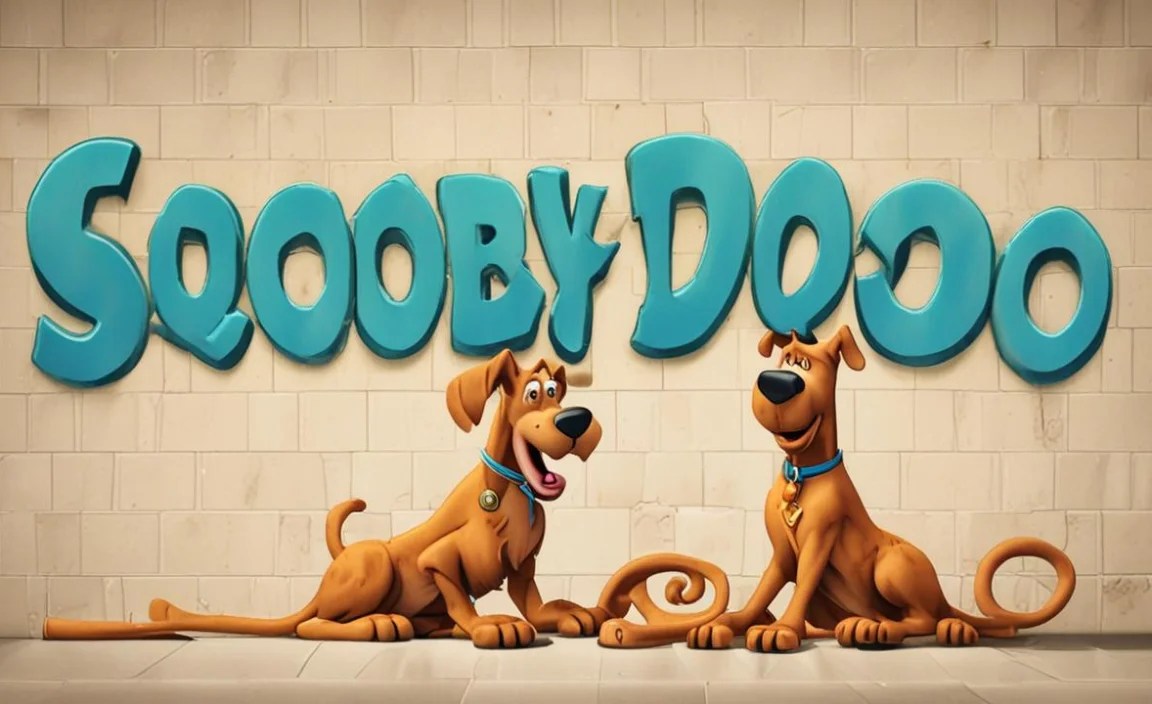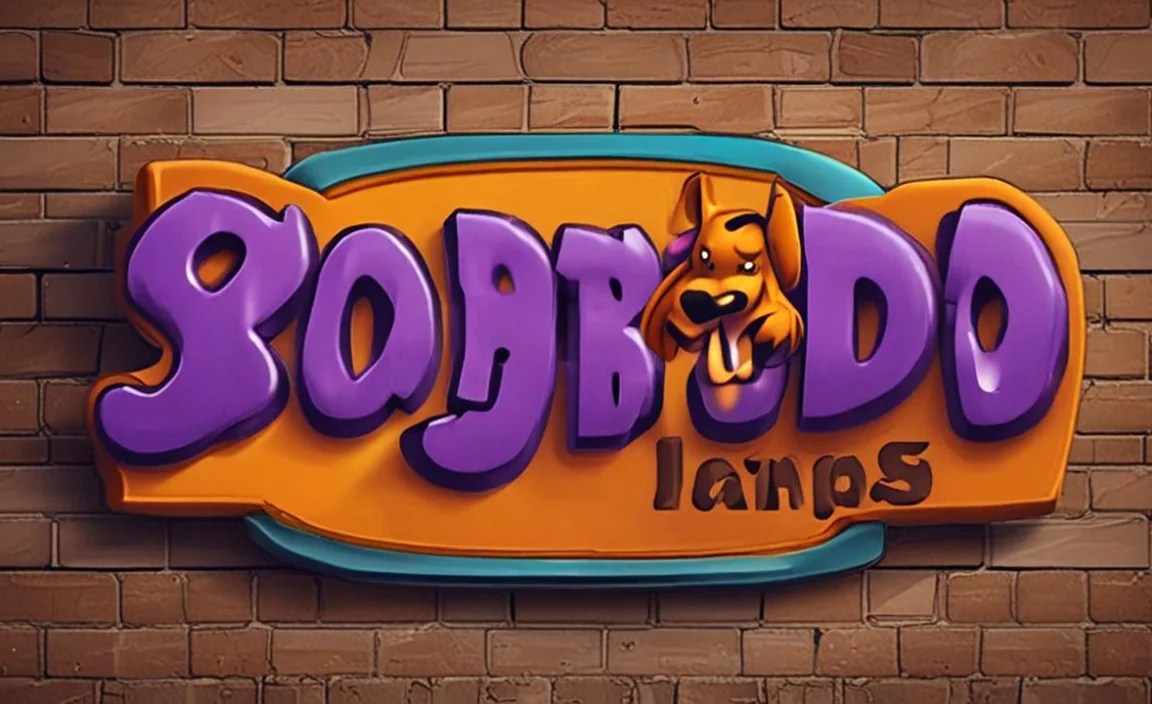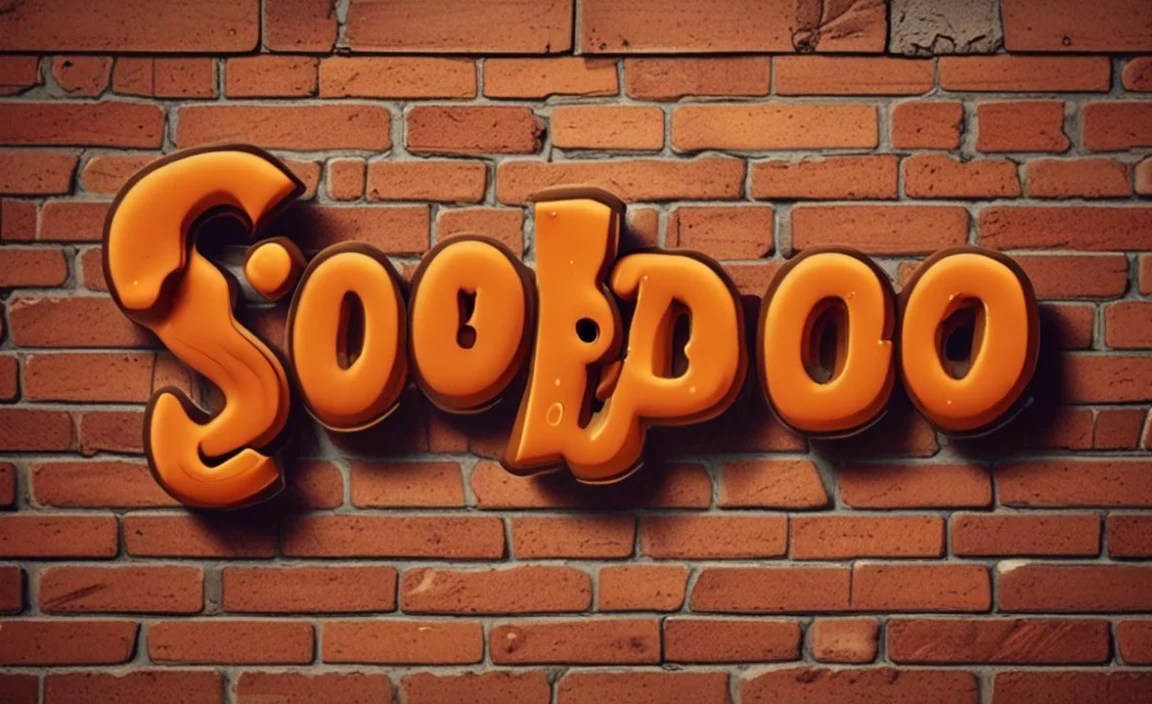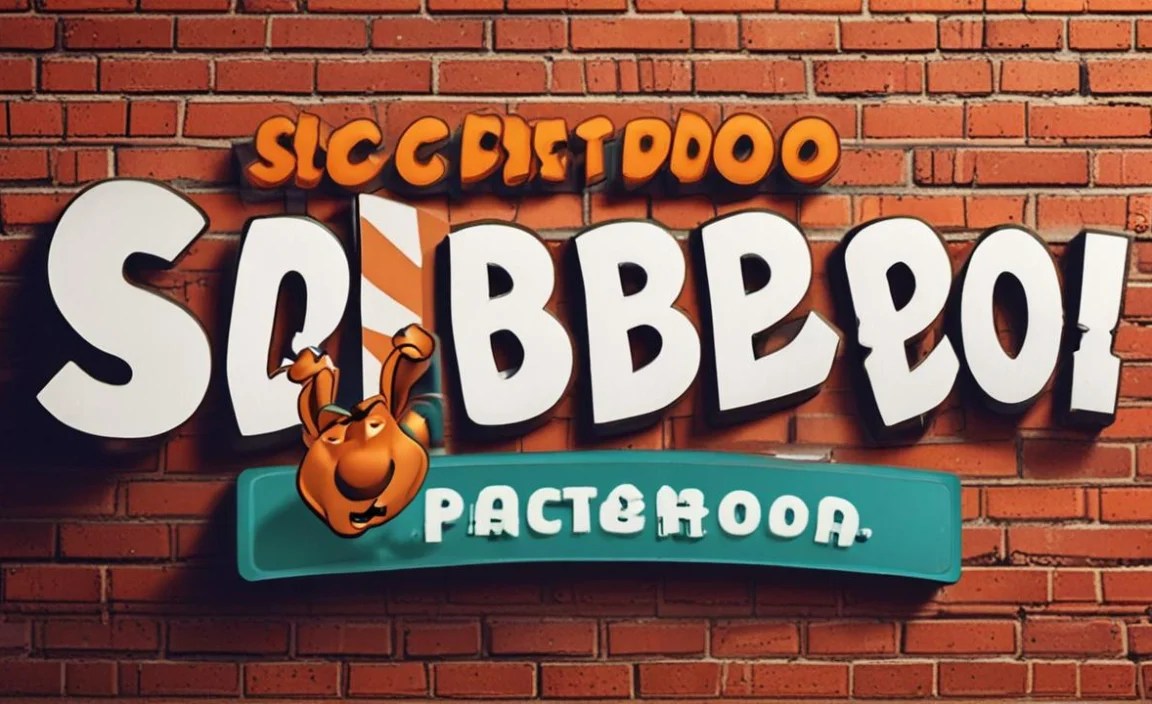
The Scooby Doo Font is a playful and whimsical typeface inspired by the iconic cartoon series “Scooby-Doo.” Designed by Lauren Ashpole, this font captures the fun and adventurous spirit of the beloved character, making it a perfect choice for designs related to animation, mystery, and childhood nostalgia.
Scooby Doo Font Information
| Name | Scooby Doo Font |
| Style | Display |
| Designer | Lauren Ashpole |
| Type | Cartoon |
Scooby Doo Font Family Includes
- Scooby Doo Regular
- Scooby Doo Bold
Where Scooby Doo Font Is In Use
The Scooby Doo Font plays a key role in creating fun and engaging designs that reflect the playful nature of the cartoon. Its unique style is ideal for various applications, including:
- Children’s Birthday Invitations
- Cartoon-Themed Projects
- Mystery or Detective Game Graphics
- Fan Art and Merchandise
- Animated Series Titles
- Kids’ Learning Materials
- Party Decorations
2. Why Is Scooby Doo Font Popular In Cartoon And Animation Branding?
The Scooby Doo Font’s whimsical and rounded design aligns perfectly with the playful and adventurous themes of the Scooby-Doo series, enhancing its visual appeal for young audiences.
3. Are There Any Special Characters In The Scooby Doo Font?
The Scooby Doo Font includes standard characters and basic punctuation but does not have extensive special characters or symbols.
4. What Are The Limitations Of The Scooby Doo Font?
The font’s cartoonish style may not be suitable for formal or professional documents and is best used in casual or child-friendly designs.
6. What Is The Typical Usage Of Scooby Doo Font?
The font is typically used for fun, cartoon-themed projects and materials aimed at children and fans of the series.